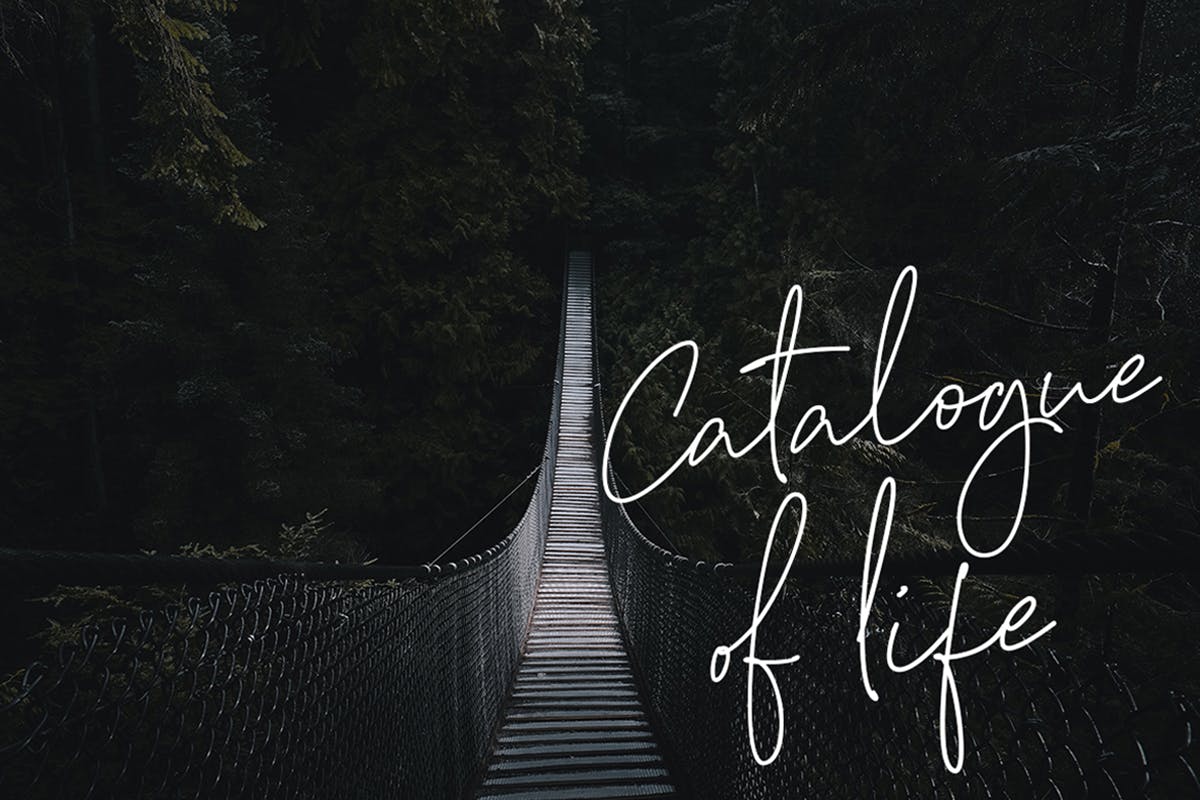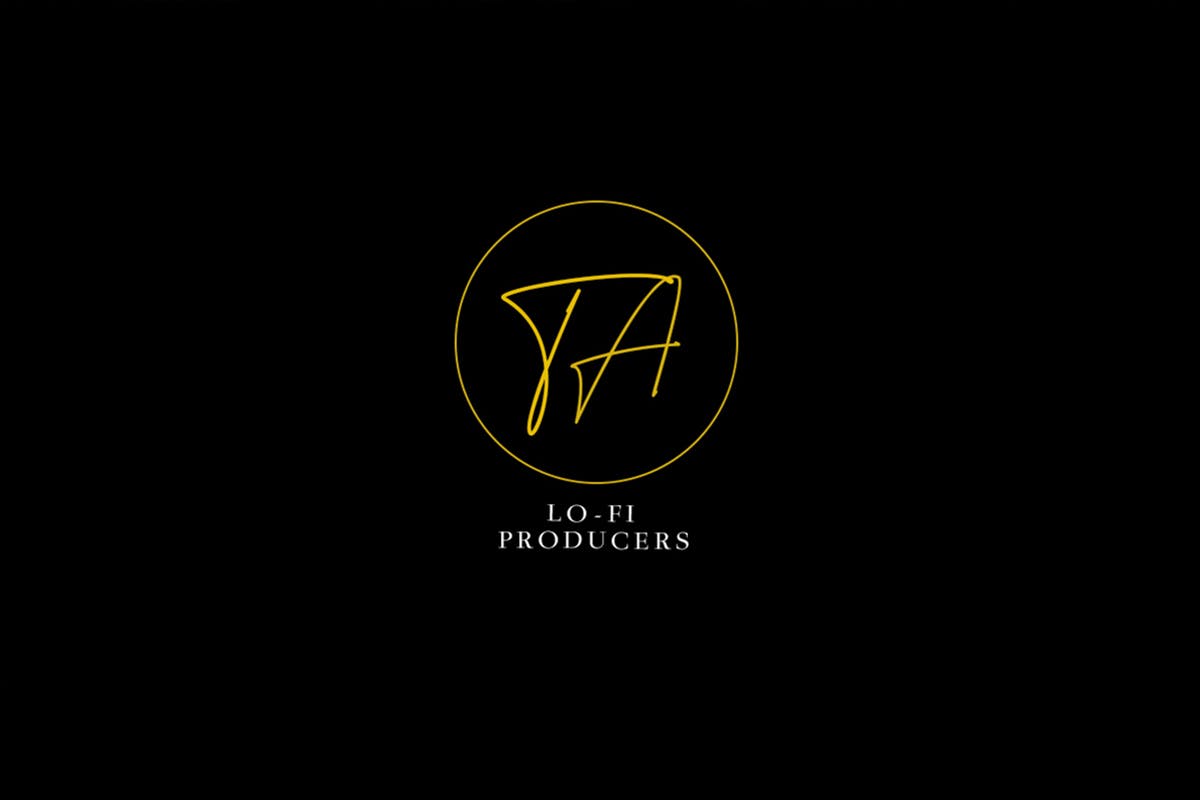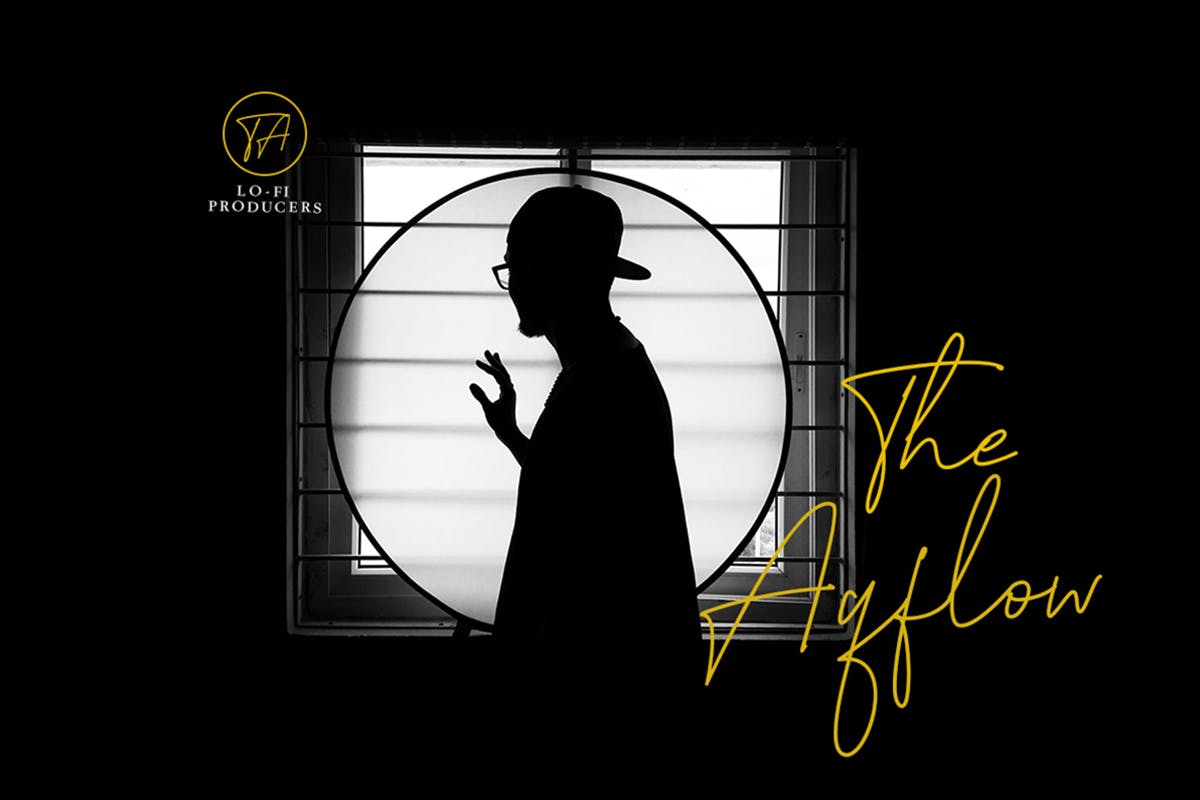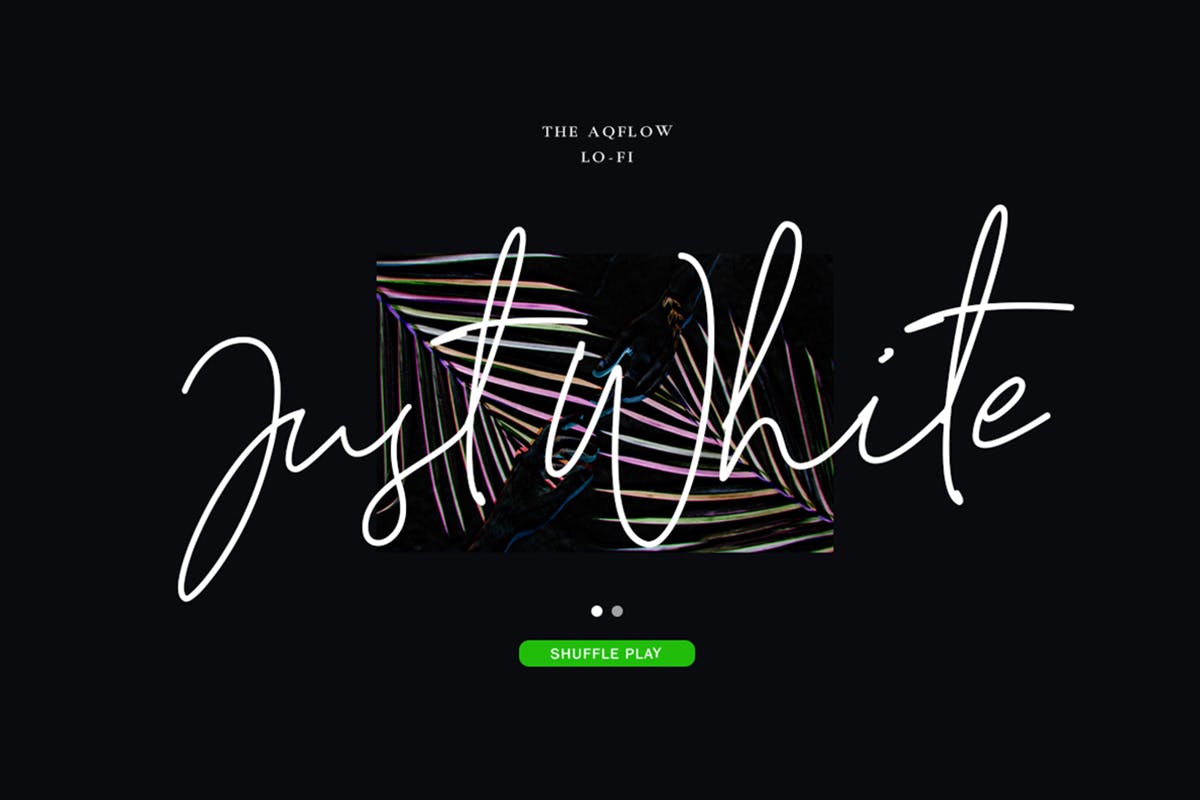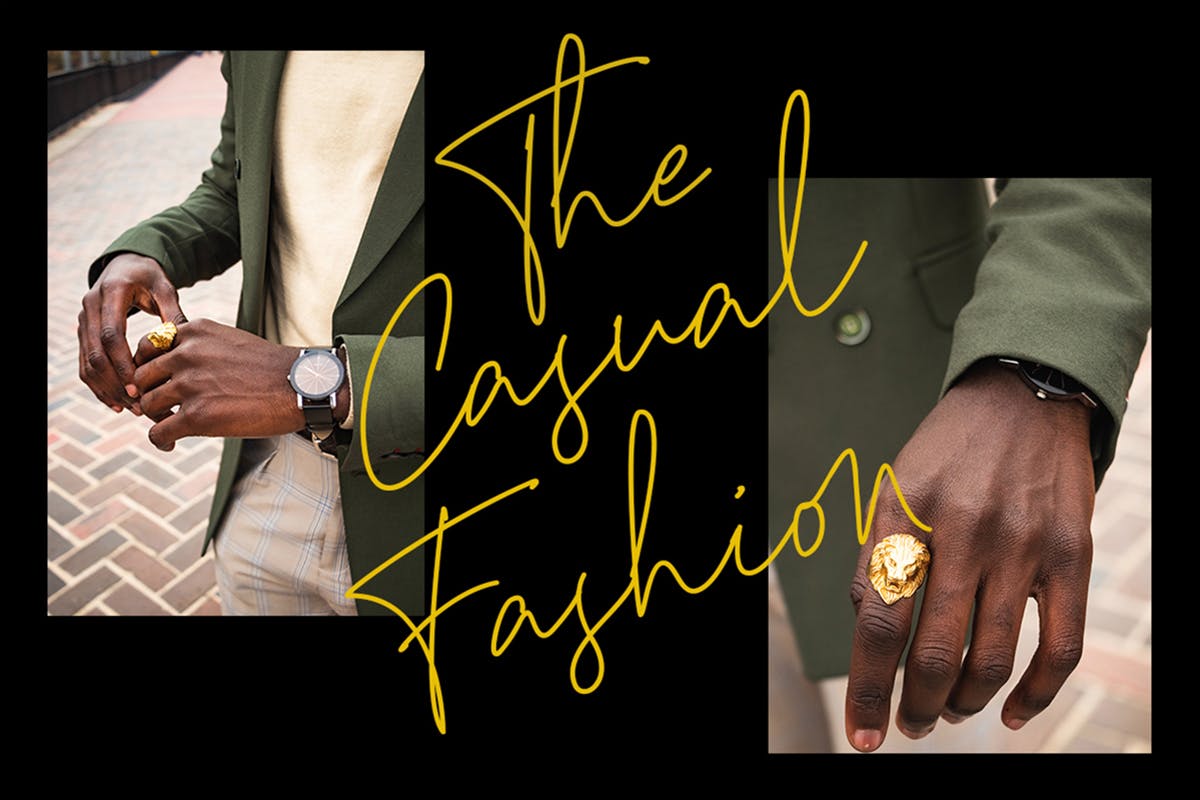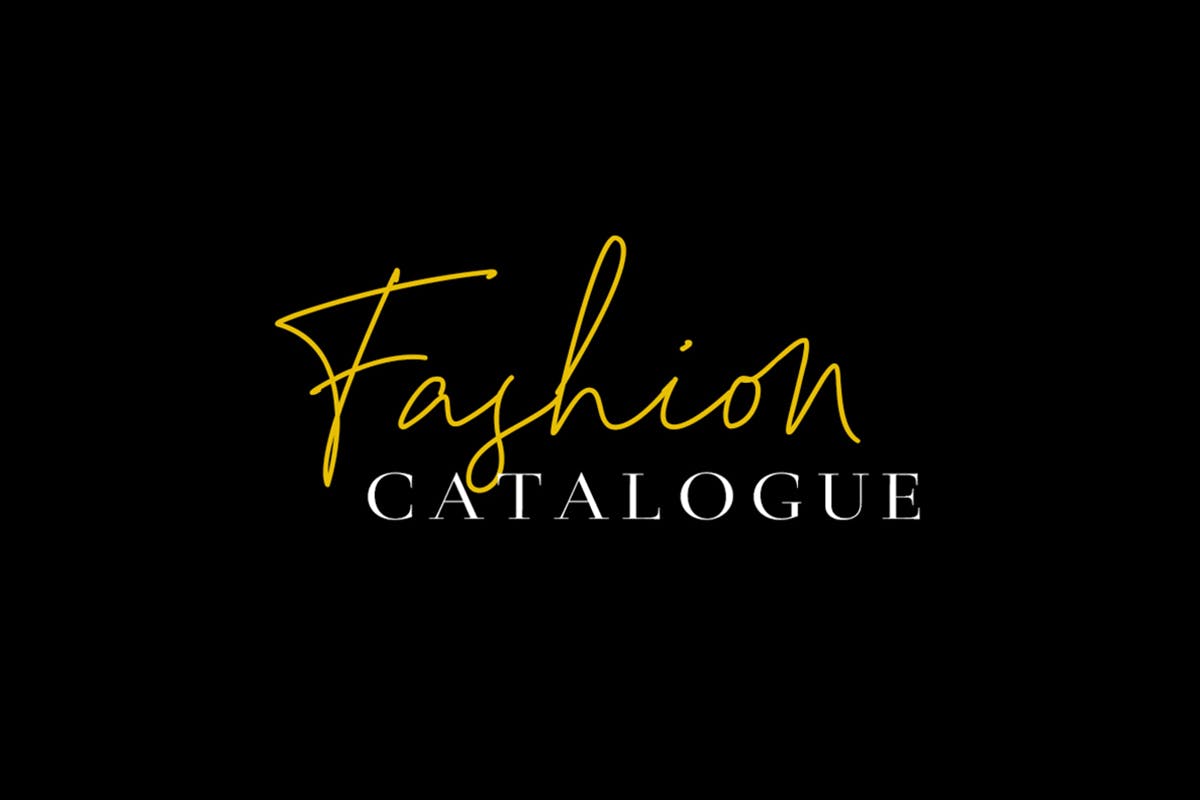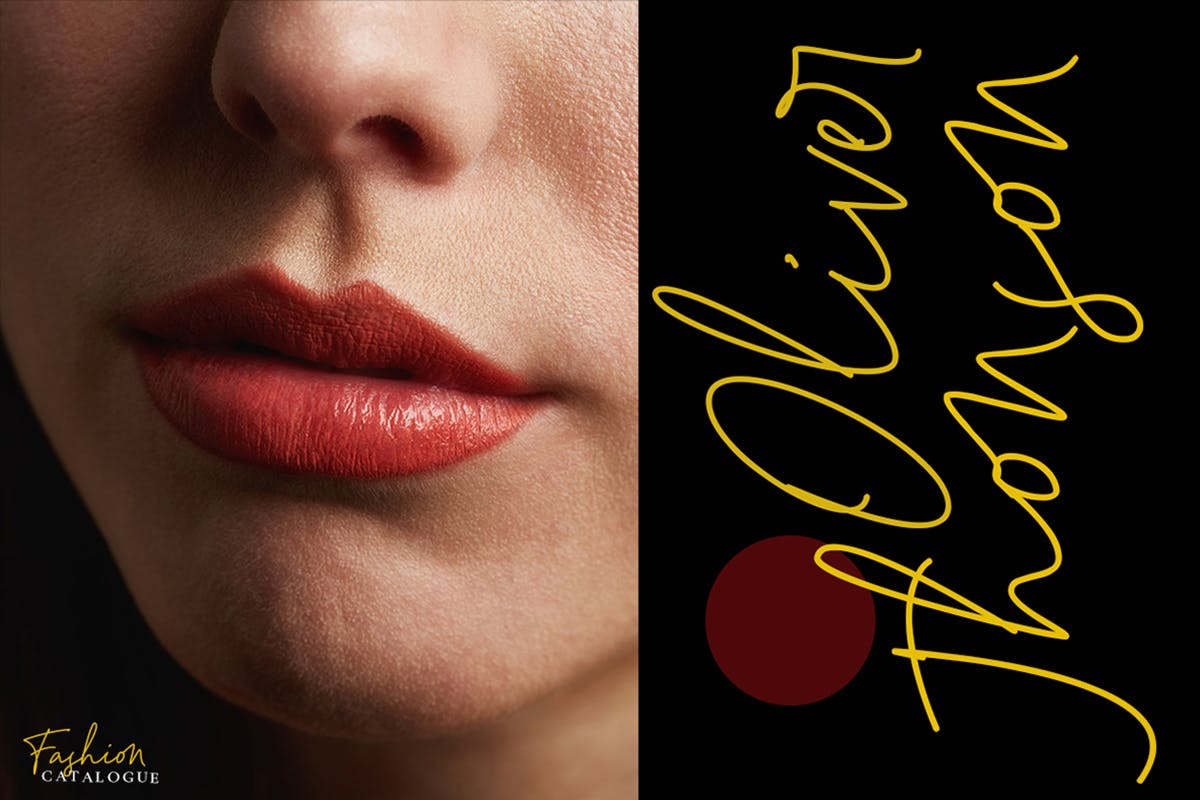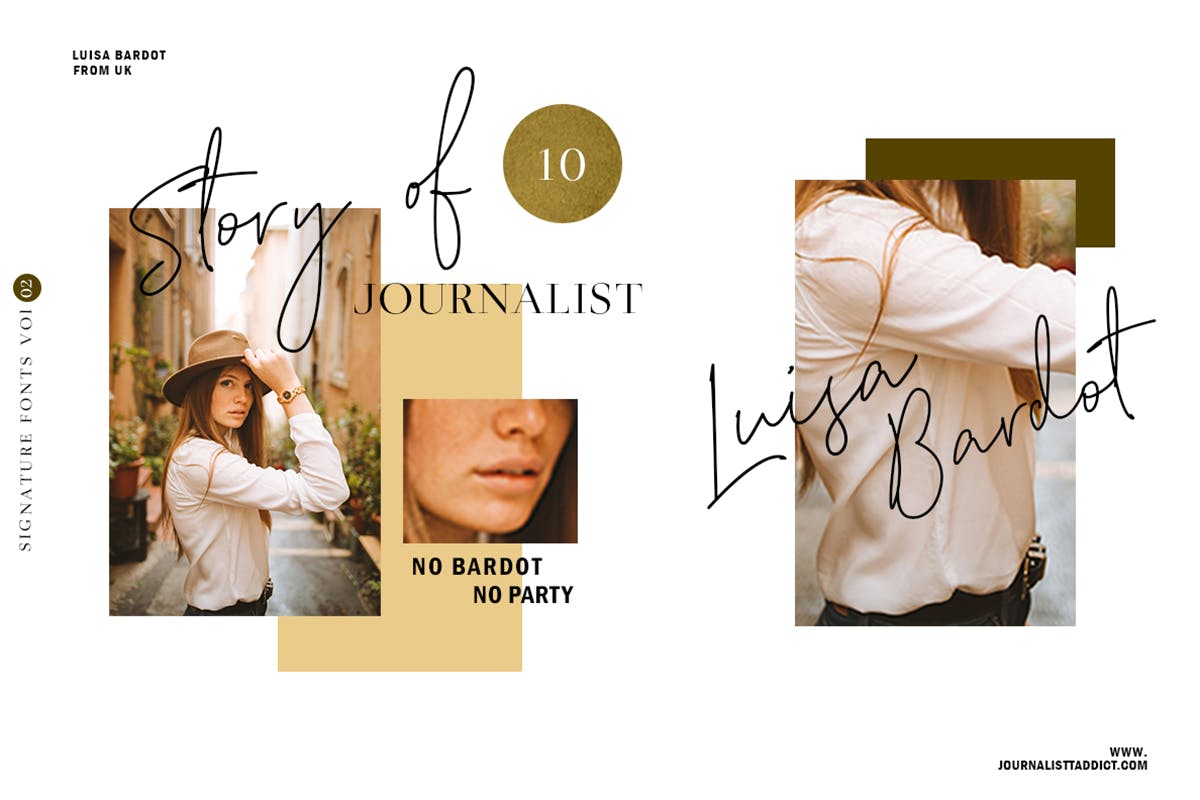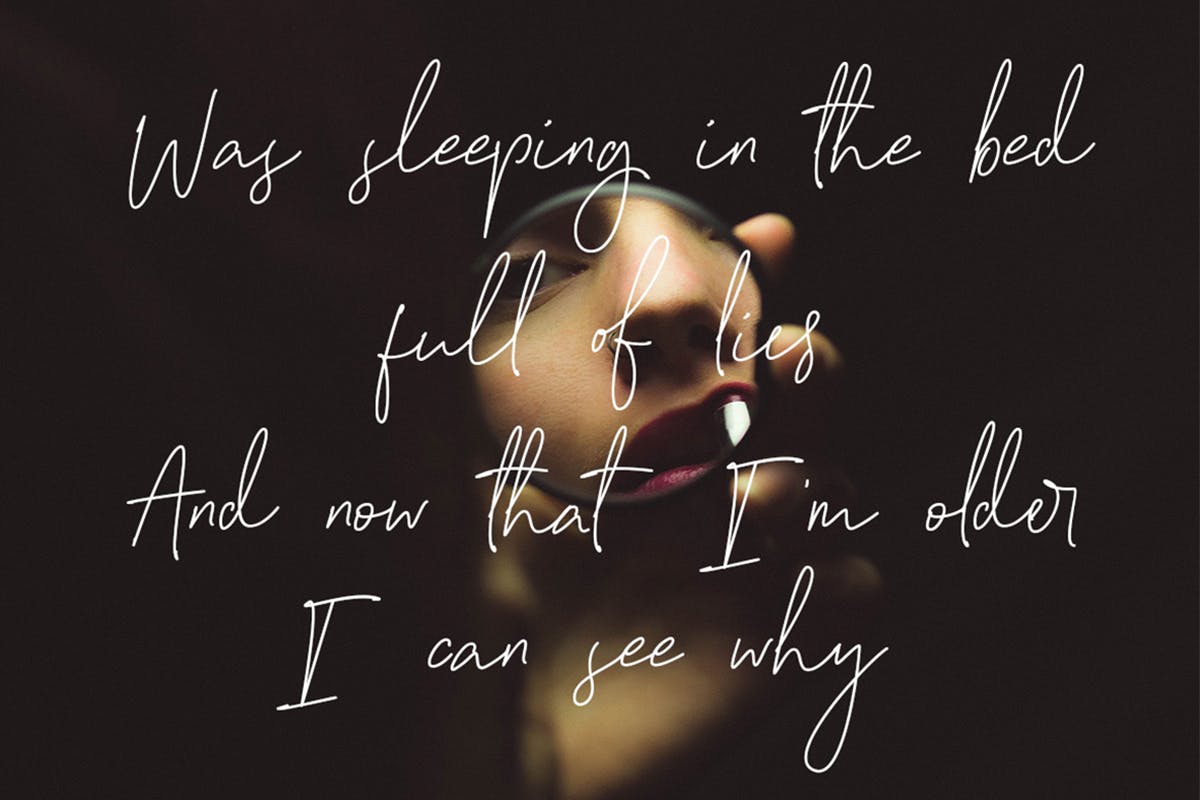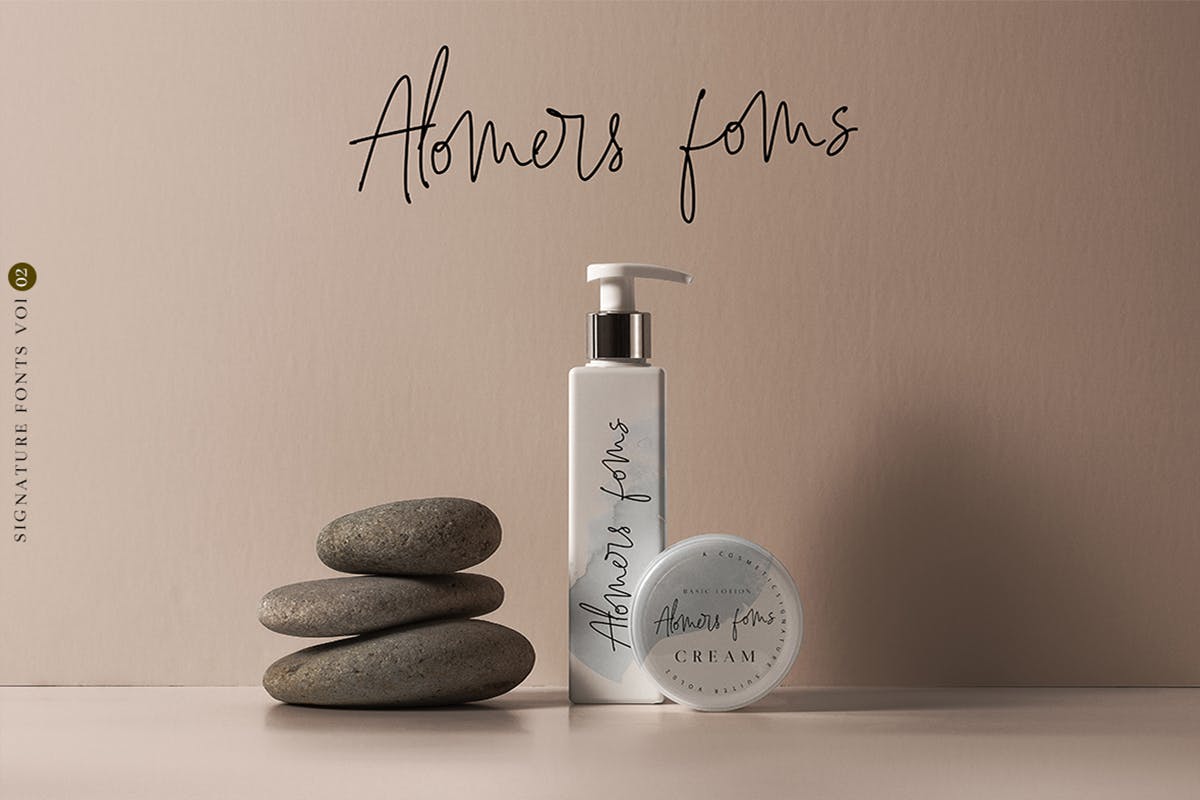
Free Bulqeusfertom Signature Fonts
Hello everyone! We already received an elegant signature font which is Free Bulqeusfertom Signature Fonts. It is a very awesome font that you can use in your work to present it to your clients. This font is suitable for packaging design, logos, banners, flyers, magazines, and more. It is also good for the design of the fashion industry, the character of the font is very fit for it. However, this free font is only can be used on personal use projects, but if you want to get more, make a purchase first.